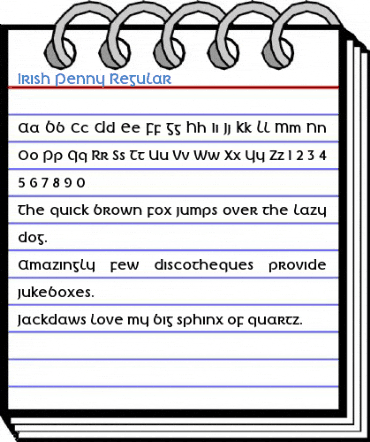
Irish Penny Regular Font
Copyright: Irish Penny by Keith Bates 016 https://www.k-type.com Irish Penny is based on the Insular lettering from Percy Metcalfe's beautiful and influential pre-decimal coinage of Ireland, the Barnyard Collection.
Company: K-Type
Designer: Keith Bates